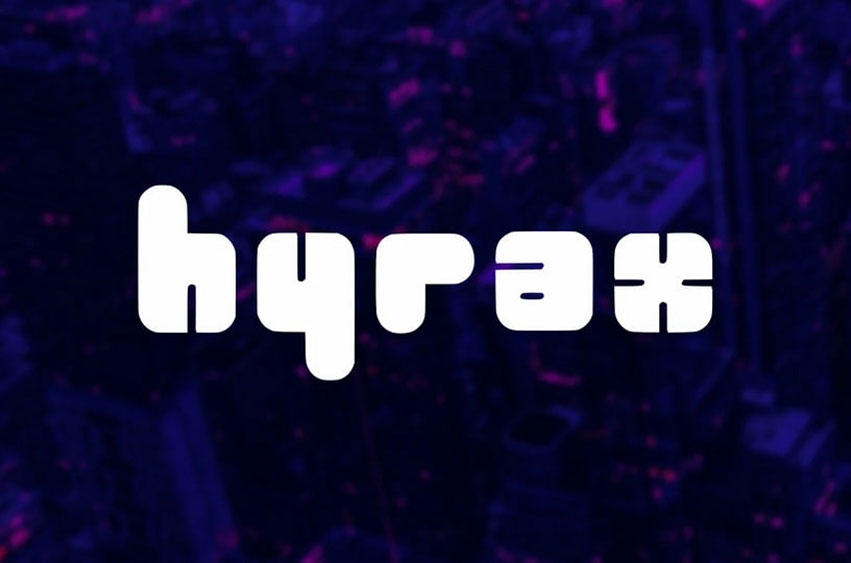
Hyrax Font
Hyrax Font is a bold, geometric display font featuring chunky letterforms with rounded edges and a playful, retro-futuristic aesthetic. The character set includes lowercase letters, numbers, basic punctuation marks, and special characters with diacritical marks.
Its distinctive bubble-like shapes and consistent weight make it ideal for headlines, logos, and creative display purposes.
Key features:Rounded, bubble-like terminalsConsistent stroke weightFull set of basic Latin characters, Numerals and punctuationDiacritical marks for extended language support